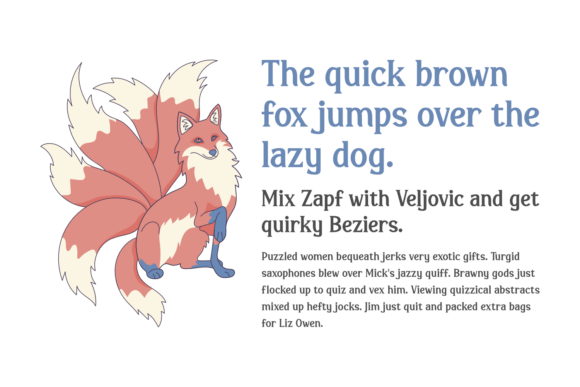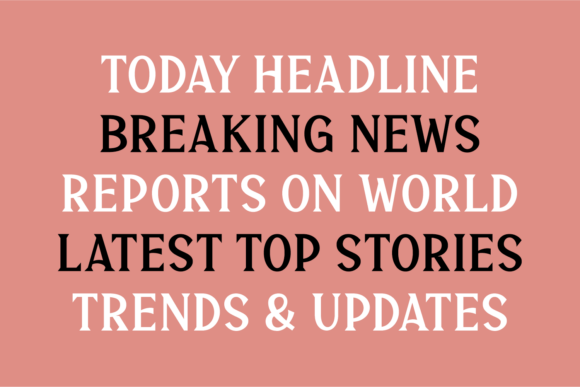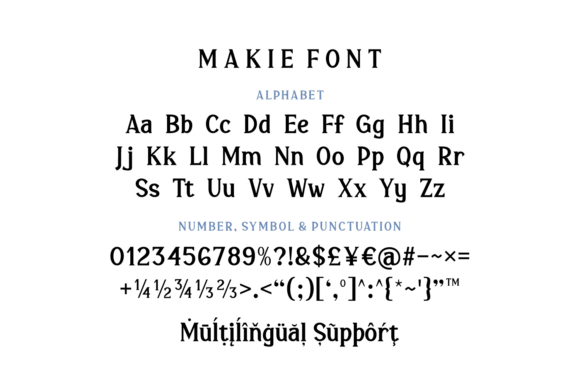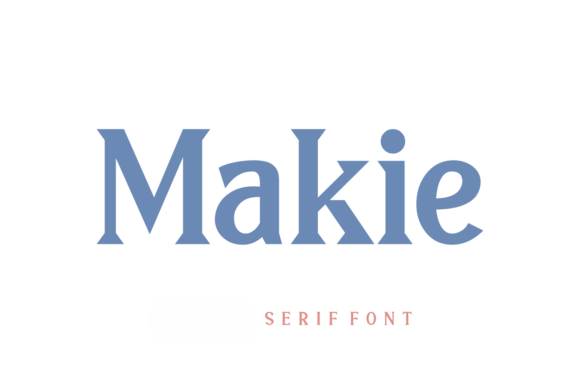
Introduction to Makie Font
Makie is a clean and elegant transitional serif font that blends minimalism with traditional typography structure.
With sharp serifs and smooth curves, it offers both readability and character Its versatile design makes it suitable for editorial layouts, branding, logo design, digital interfaces, and even packaging.
Key Features of Makie Font
Why Choose Makie Font?